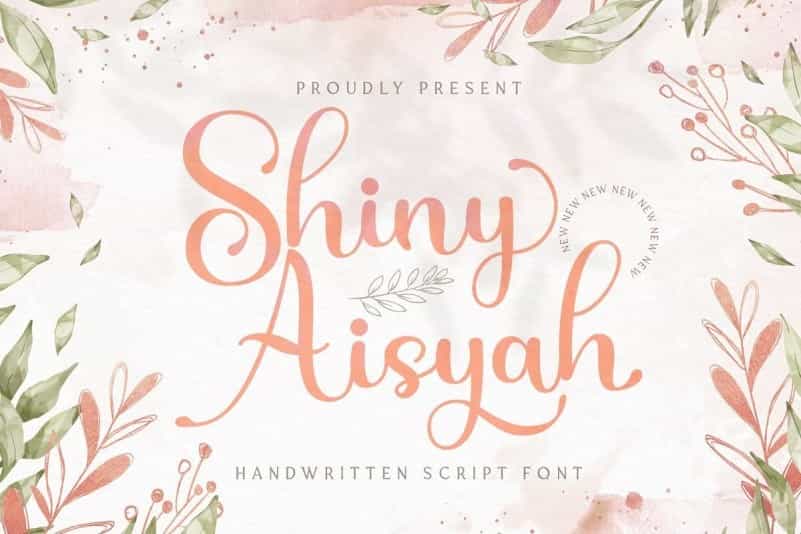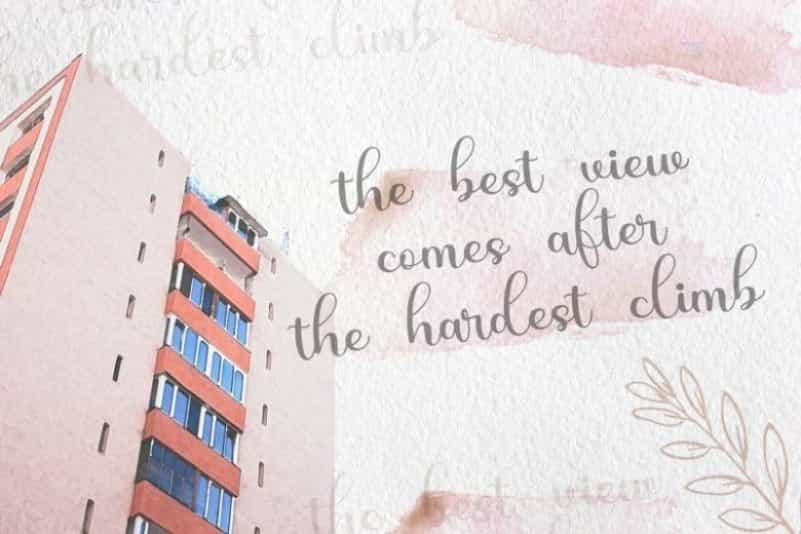
Discover Shiny Aisyah Calligraphy Script Font, part of the Calligraphy Handwritten Script collection—a versatile and unique font perfect for adding a personal touch to your projects. Download it for free and enjoy crafting designs with style, from invitations to social media posts. This font is available exclusively for personal use, giving you the freedom to create without limits. Unlock your creativity with Shiny Aisyah Calligraphy Script Font today!
Shiny Aisyah is an contemporary feminine typeface. each letter has been meticulously designed in order to create your texts appear stunning. With a contemporary style of script This font is ideal for projects such as photos, watermarks and blog headers, quotes weddings, posters branding logos, fashion invitations, clothing, letters and stationery. Shiny Aisyah Font is an elegant new font!